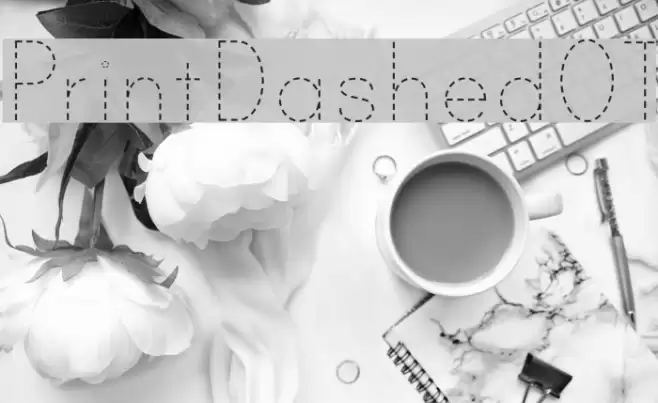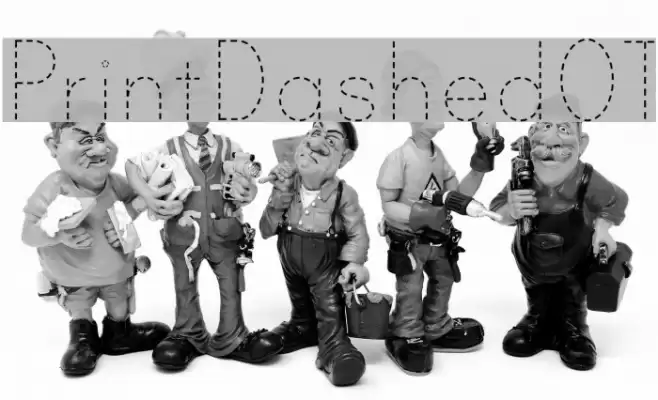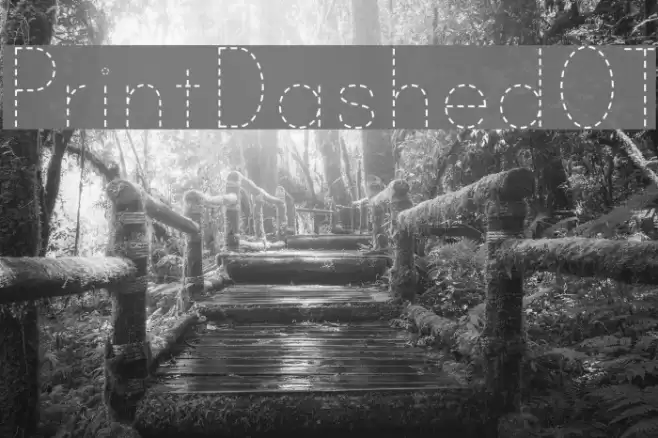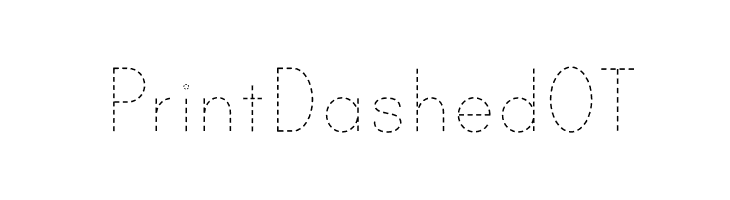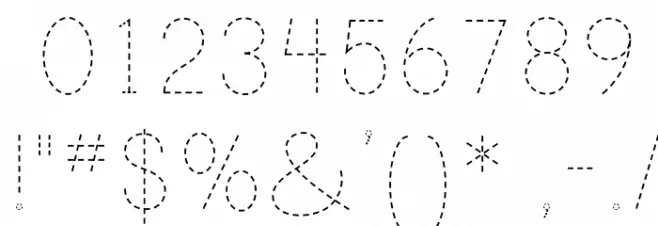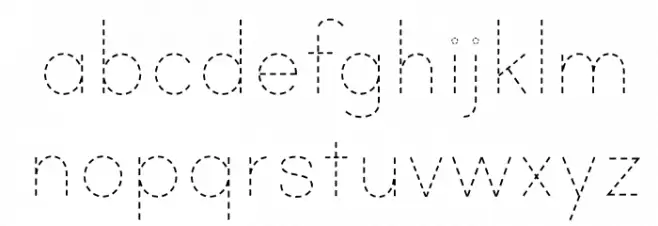
PrintDashedOT Font
PrintDashedOT Description
This font features a unique dashed line style, giving it a playful and informal appearance. Each character is composed of evenly spaced dashes, creating a sense of movement and lightness. The uppercase and lowercase letters maintain a consistent height and width, ensuring readability while adding a distinctive touch. The numerals and special characters follow the same dashed pattern, providing a cohesive look across all glyphs. This font is ideal for creative projects where a casual and approachable feel is desired.
A playful dashed line font with consistent spacing and a casual style from Uncategorized fonts.
- Proposed Projects: Ideal for children's books, educational materials, playful branding, and DIY craft projects.
- Overall Style: Playful
- Use Case: Headlines, Logos, Creative projects